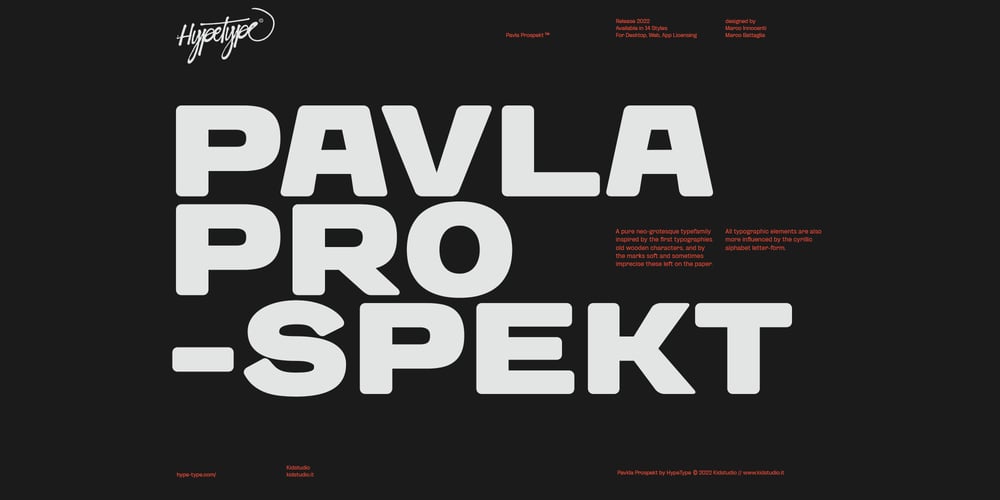
HT Pavla Prospekt
HT Pavla Prospekt font
HT Pavla Prospekt Font Family was designed by Marco Innocenti and published by Hype Type. HT Pavla Prospekt contains 14 styles and family package options. A pure neo-grotesque typefamily inspired by the first typographies’ old wooden characters, and by the marks soft and sometimes imprecise these left on the paper.All typographic elements are also influenced by the Cyrillic alphabet letter-form.–HT Pavla Prospekt is inspired by ancient wooden typefaces and eastern-style letterform. This reference gives the letters unusual but characteristic proportions. The visual effect of the diffusion of the ink imprinted on the paper, which gives softness to the forms, is also very influential.The proportions of the bold and thin faces are visually balanced to ensure a more modern feeling.–